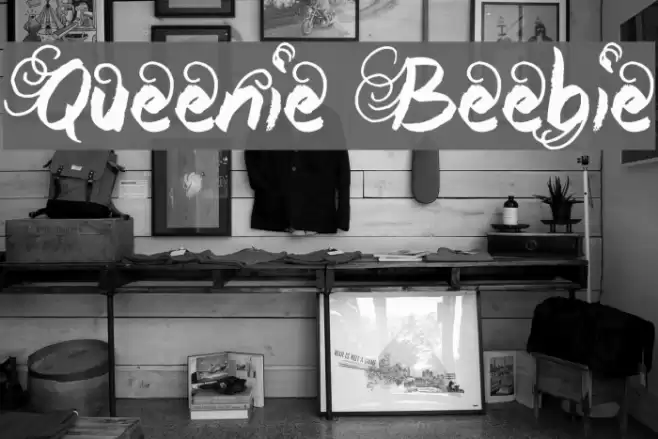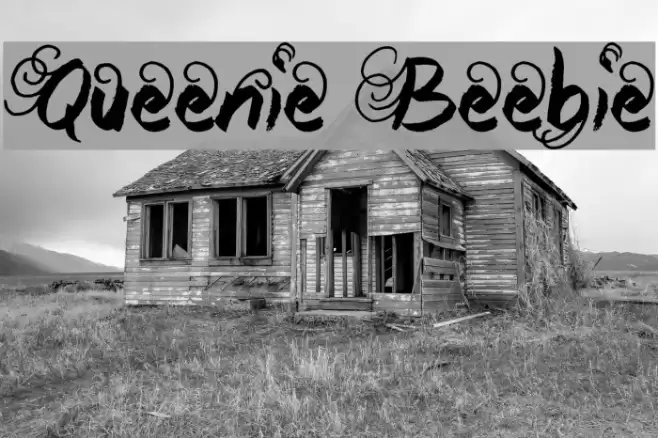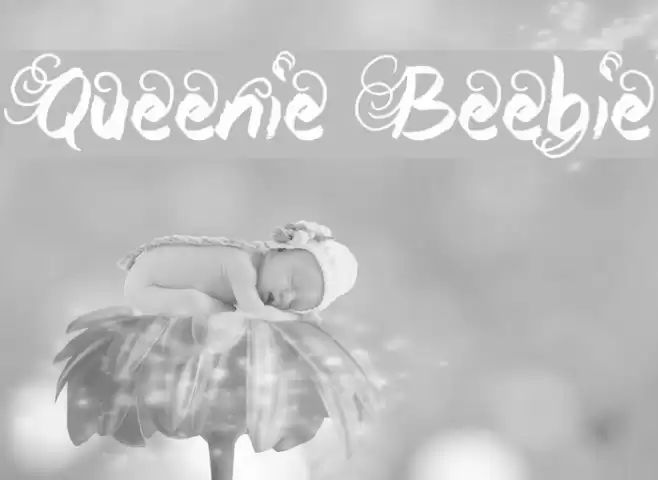
Queenie Beebie Font
Queenie Beebie Description
This font features an elaborate and decorative style with swirling embellishments that give it a whimsical and artistic flair. The uppercase letters are adorned with intricate curls and loops, creating a sense of movement and elegance. The lowercase letters maintain a bold presence with a slightly distressed texture, adding a touch of edginess to the overall design. The font's unique character is further enhanced by its playful and ornate appearance, making it suitable for creative and expressive projects. Its distinctive style is perfect for capturing attention and conveying a sense of creativity and individuality.
A decorative and whimsical font with swirling embellishments and a bold, artistic style from Uncategorized fonts.
- Proposed Projects: Ideal for artistic projects, invitations, posters, and branding that require a creative and expressive touch.
- Use Case: Headlines, Logos, Artistic projects